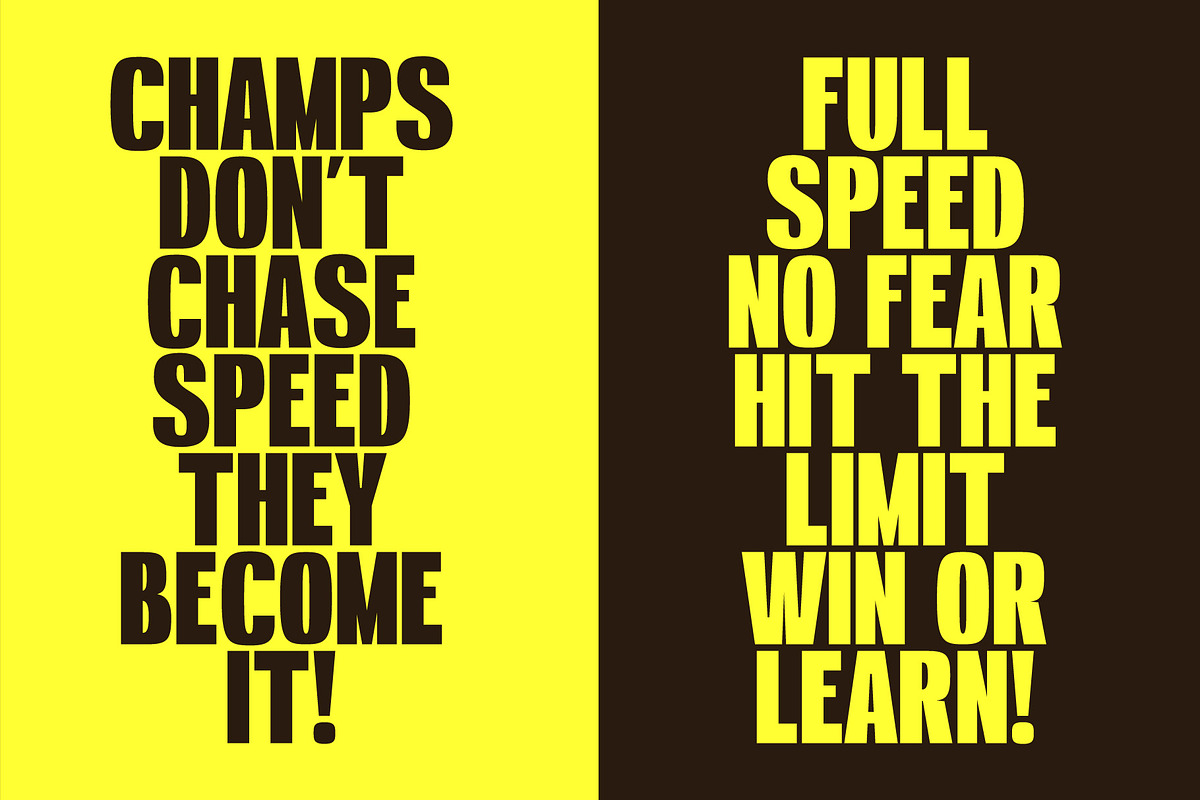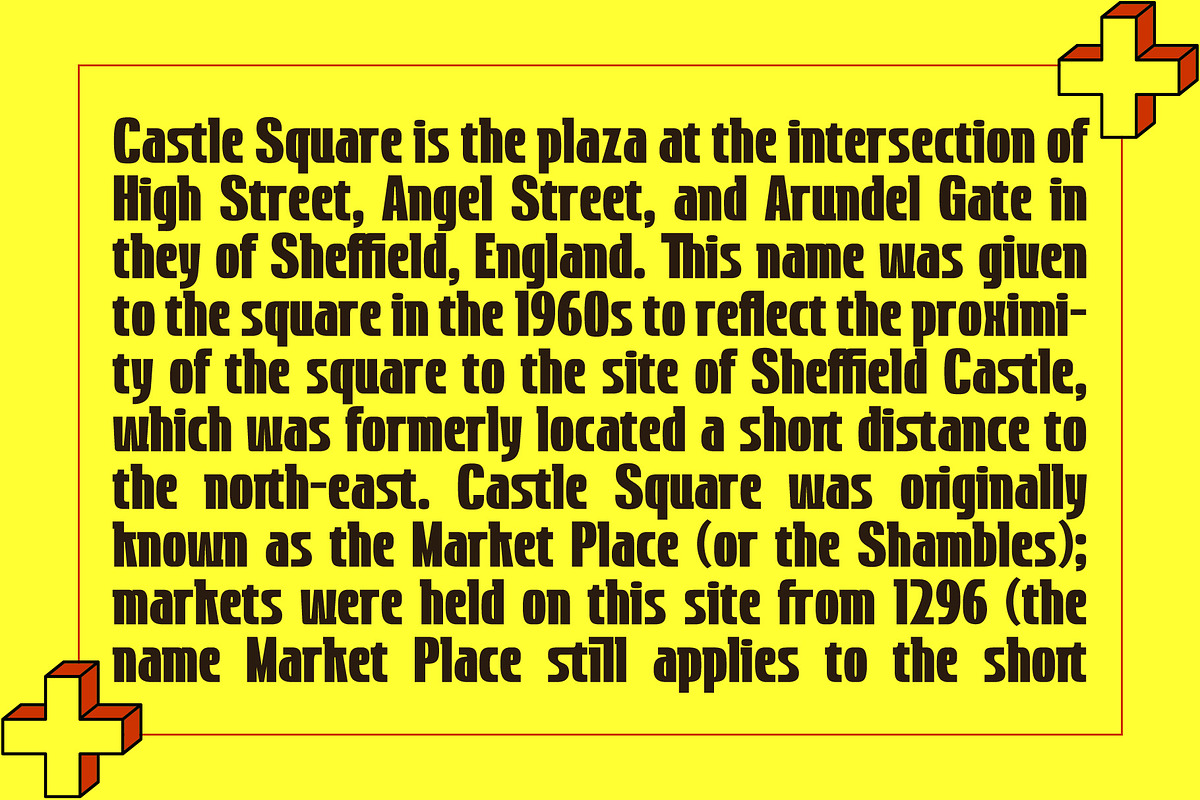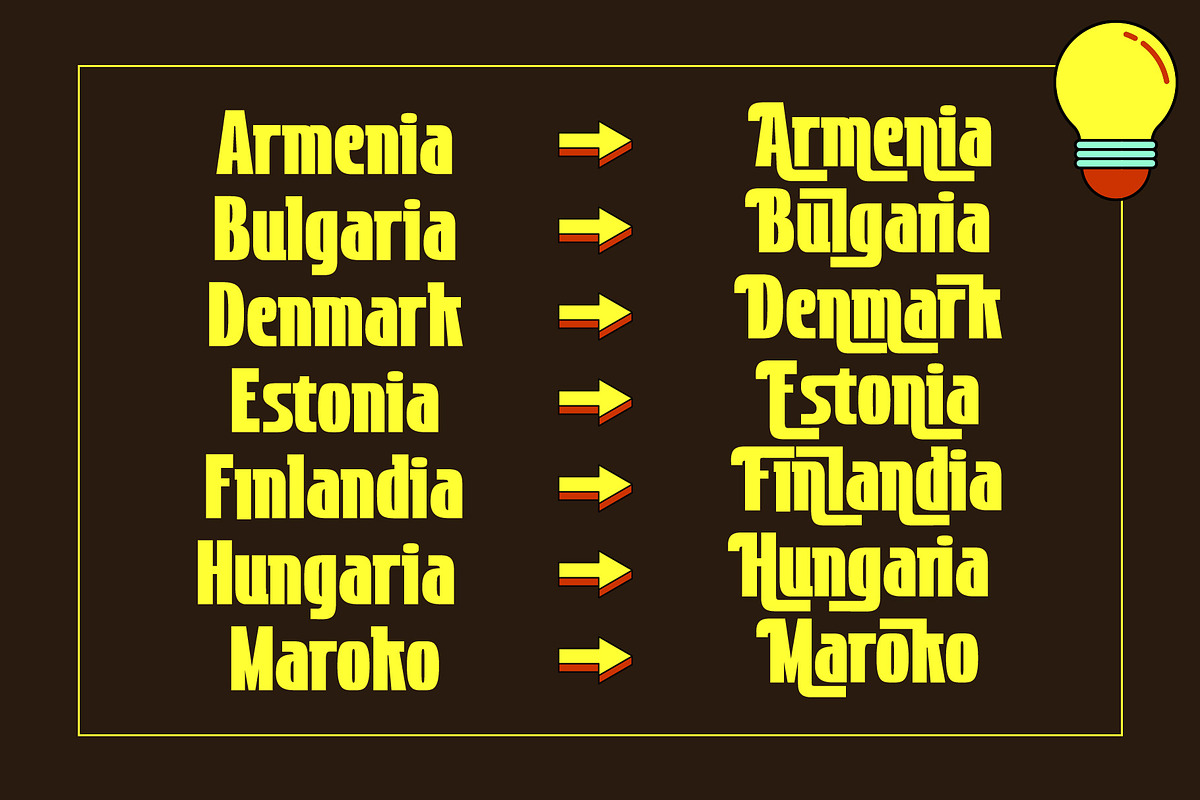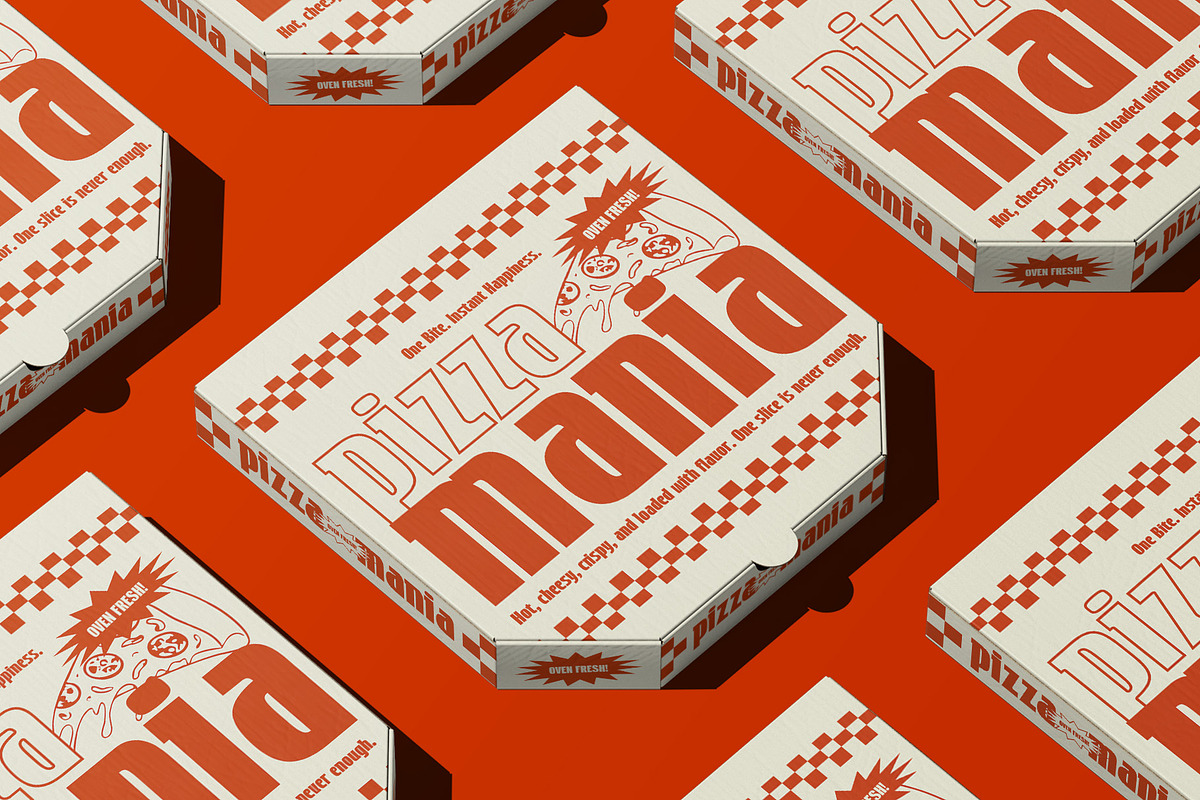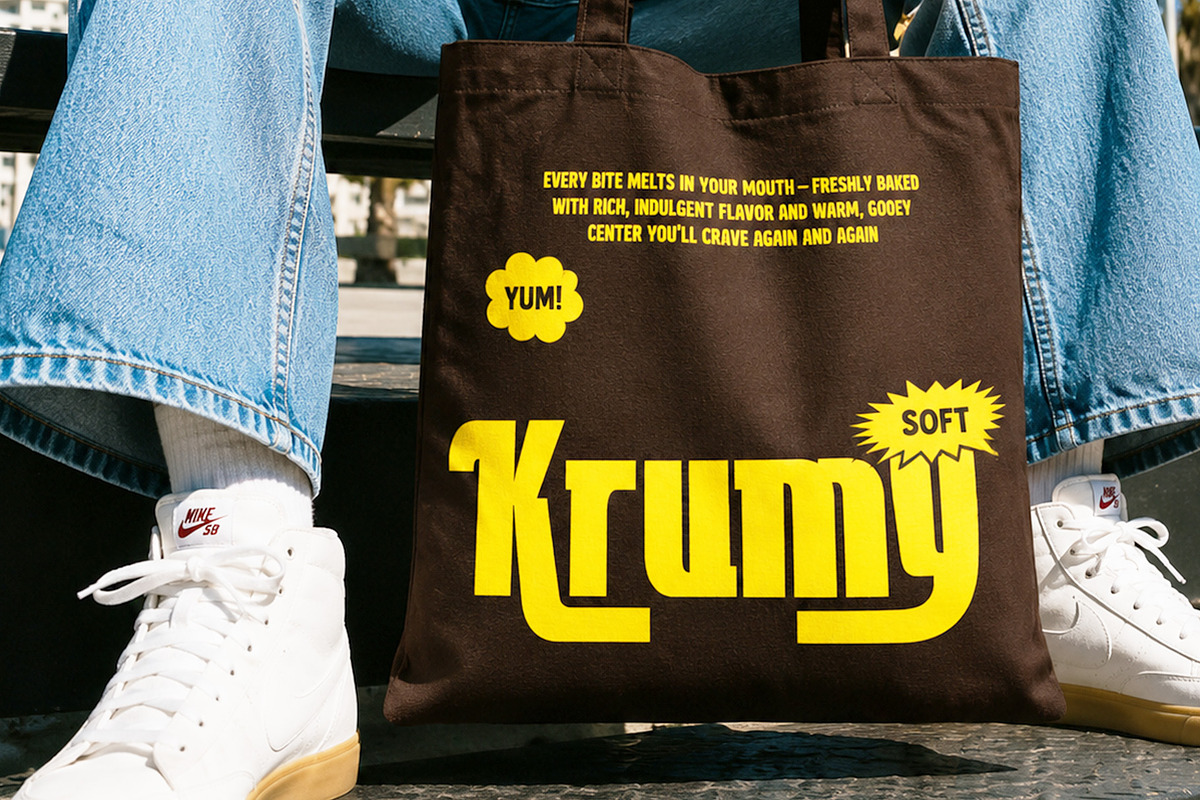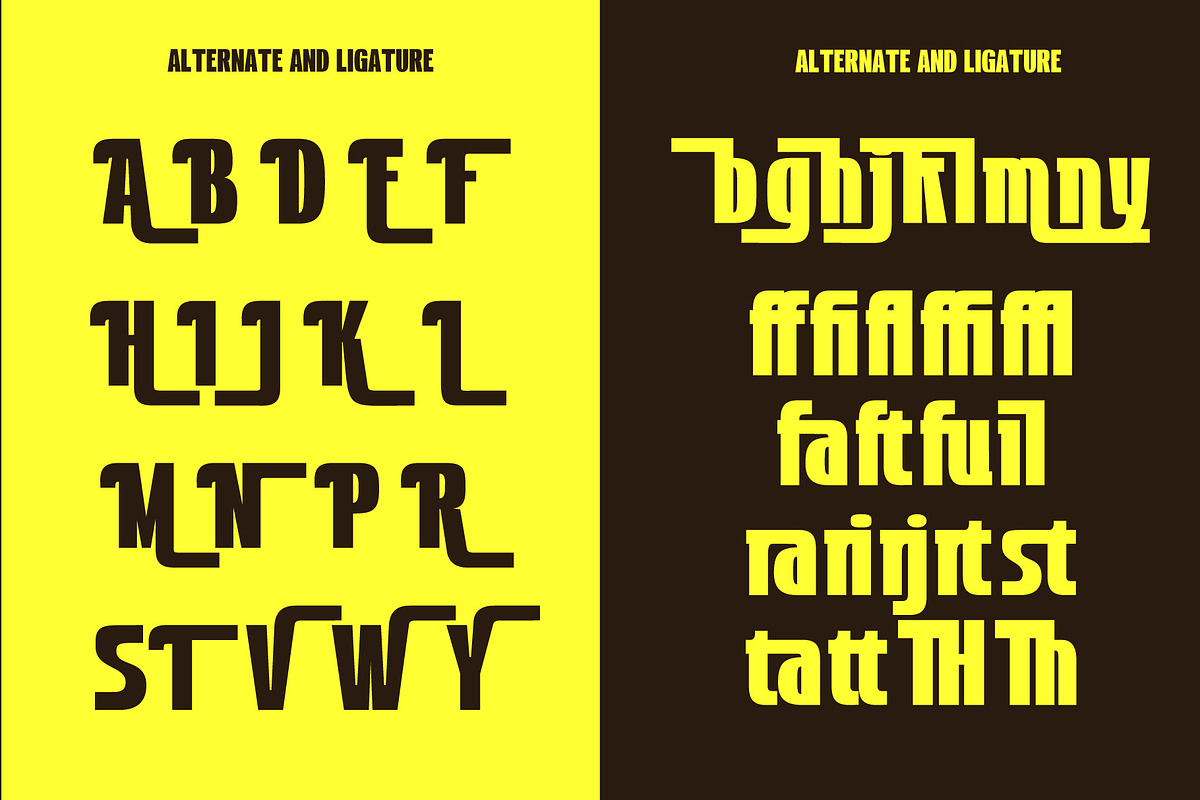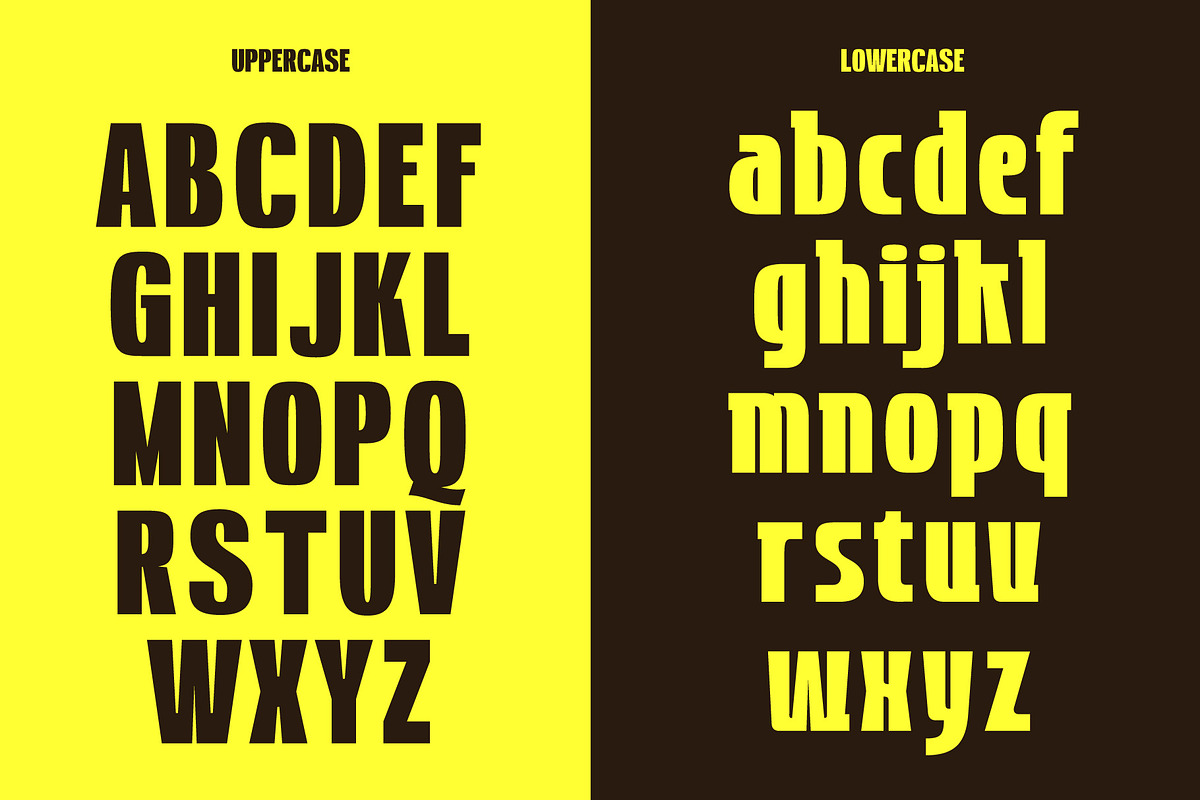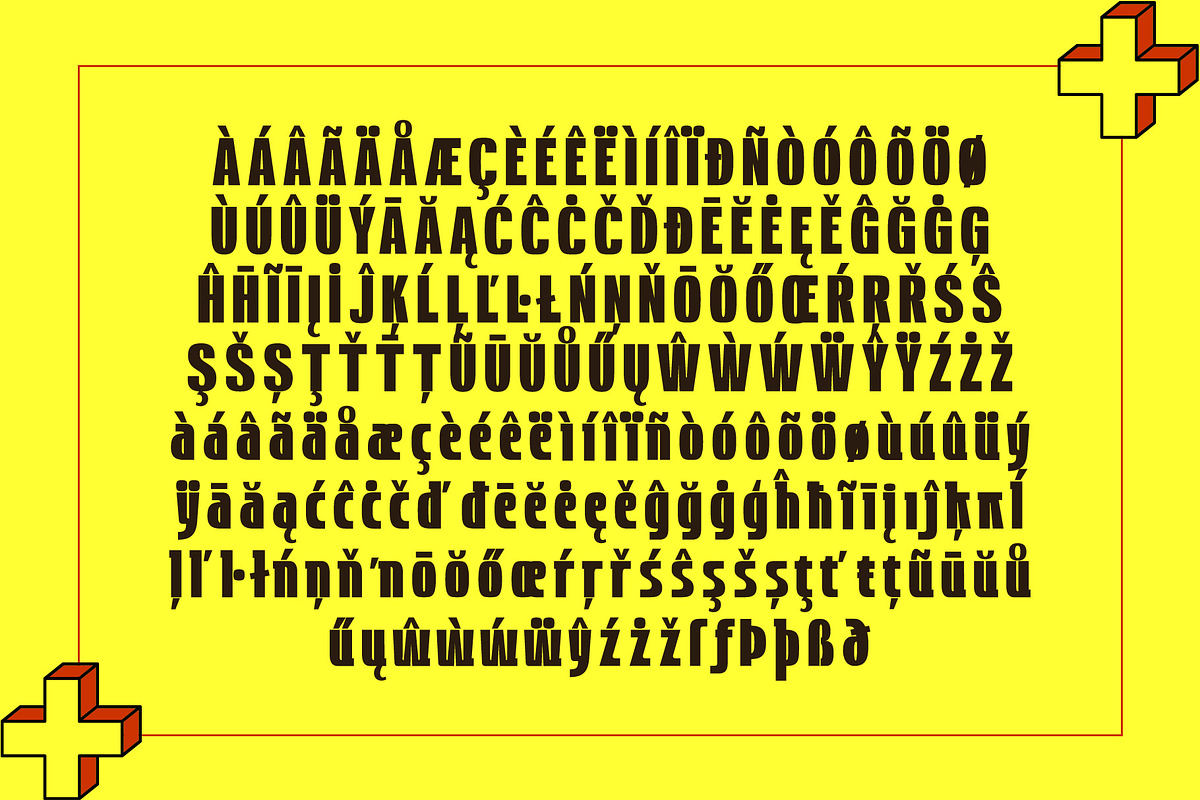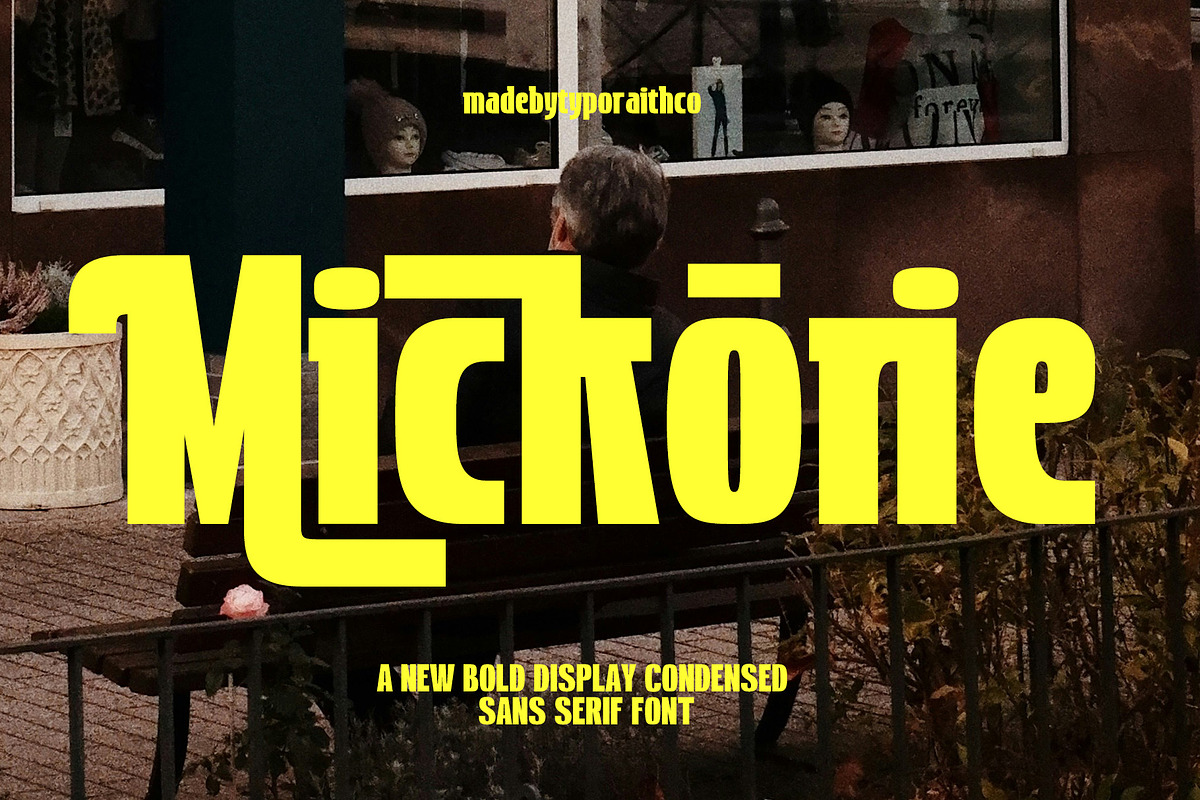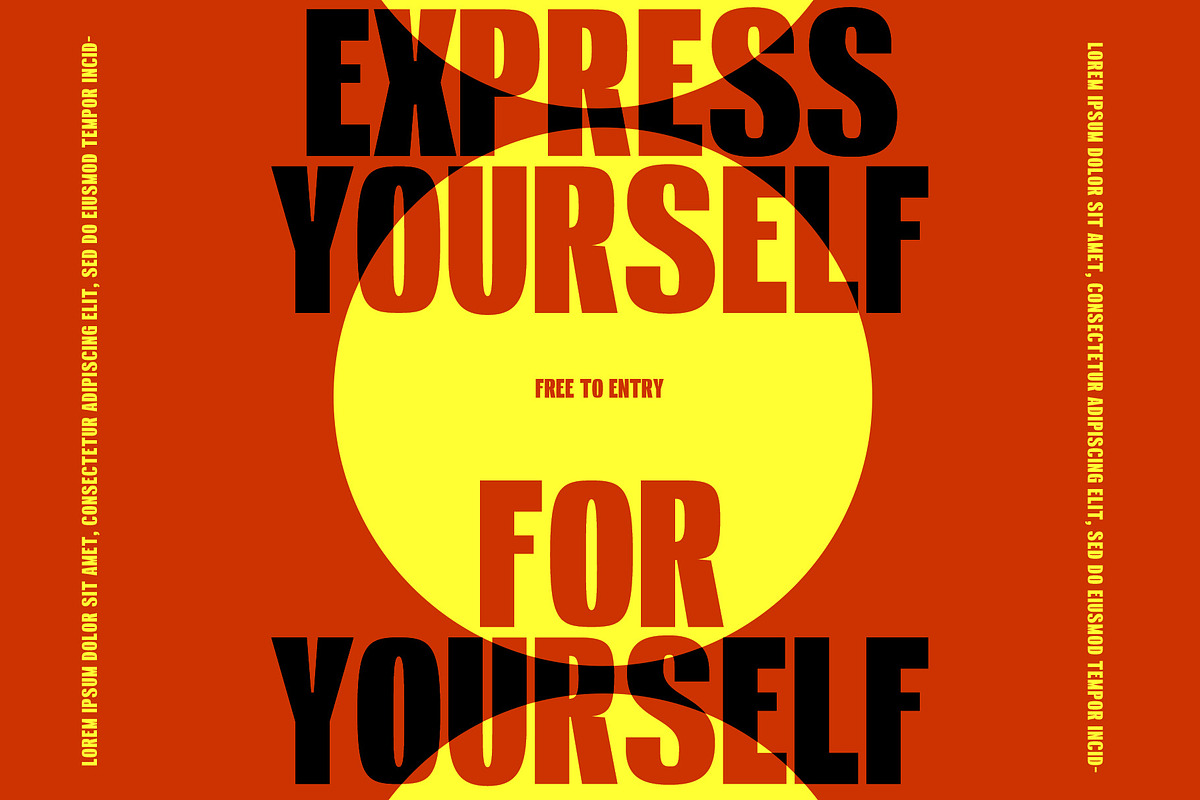
Mickorie | Bold Display Condensed
Mickorie is a bold display condensed sans serif font designed to make a strong visual impact. With its heavy weight, condensed proportions, and powerful geometric character, Mickorie is perfect for headlines, posters, branding, editorial layouts, packaging, apparel, and other designs that need a confident and striking typographic presence.
Its compact structure allows you to create large, attention-grabbing typography while maintaining a clean and contemporary look. Mickorie works especially well for modern branding, sports graphics, music artwork, fashion campaigns, advertising, magazine covers, social media graphics, and promotional designs.
Bold condensed sans serif style
Strong and impactful display character
Designed for headlines and large typography
Clean and modern appearance
Great for branding and logo design
Suitable for posters, editorial, packaging, apparel, and advertising
Works beautifully for both digital and print projects
Branding • Logos • Posters • Editorial Design • Fashion • Sports Graphics • Packaging • Advertising • Social Media • Magazine Covers • Headlines • Apparel
Bring a bold and contemporary personality to your next project with Mickorie — a condensed display typeface made to stand out.